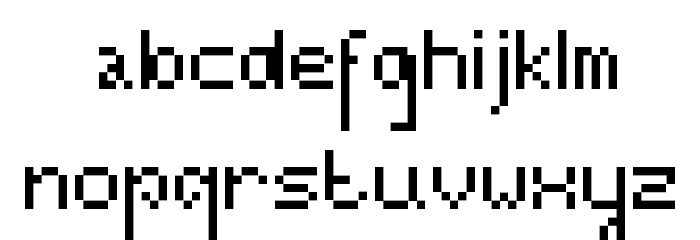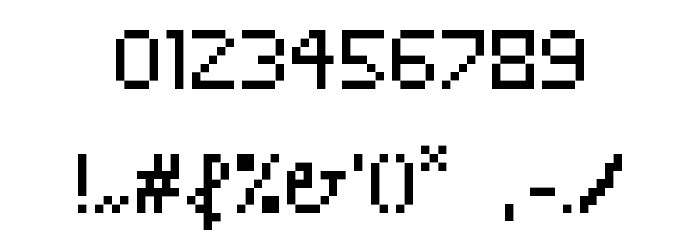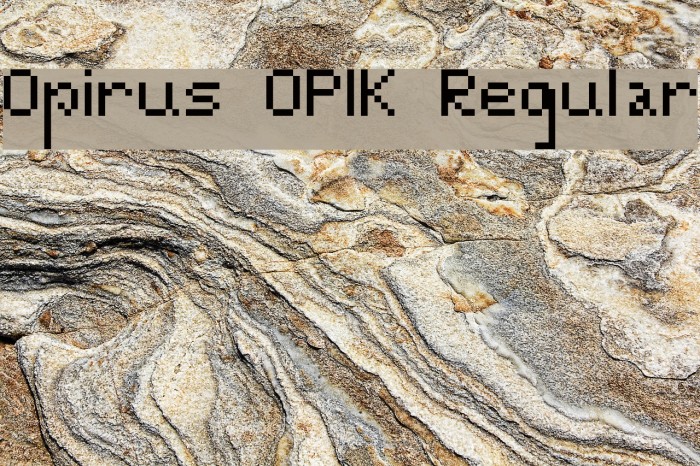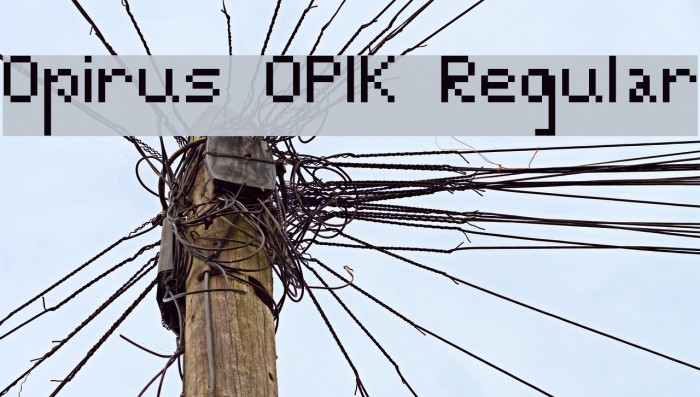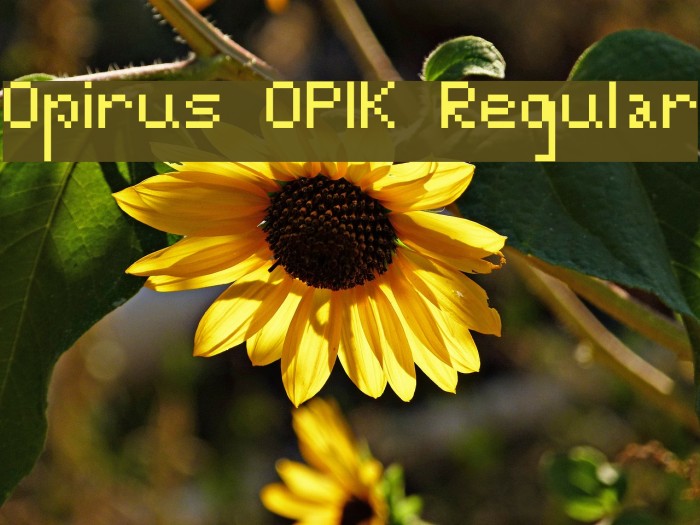
Opirus OPIK Regular Font
This font features a pixelated, blocky design reminiscent of early digital displays and retro video games. Each character is composed of square, uniform pixels, giving it a distinctly digital and geometric appearance. The uppercase and lowercase letters maintain a consistent height, while the numerals and special characters follow the same pixelated style. The font's rigid structure and uniformity make it ideal for projects that require a nostalgic or tech-inspired aesthetic.
A pixelated, blocky font with a retro digital style.
- Proposed Projects: Ideal for retro video game graphics, digital art projects, tech-themed posters, and nostalgic branding.
- Overall Style: Retro, Digital
- Use Case: Logos, Headlines, Digital Art